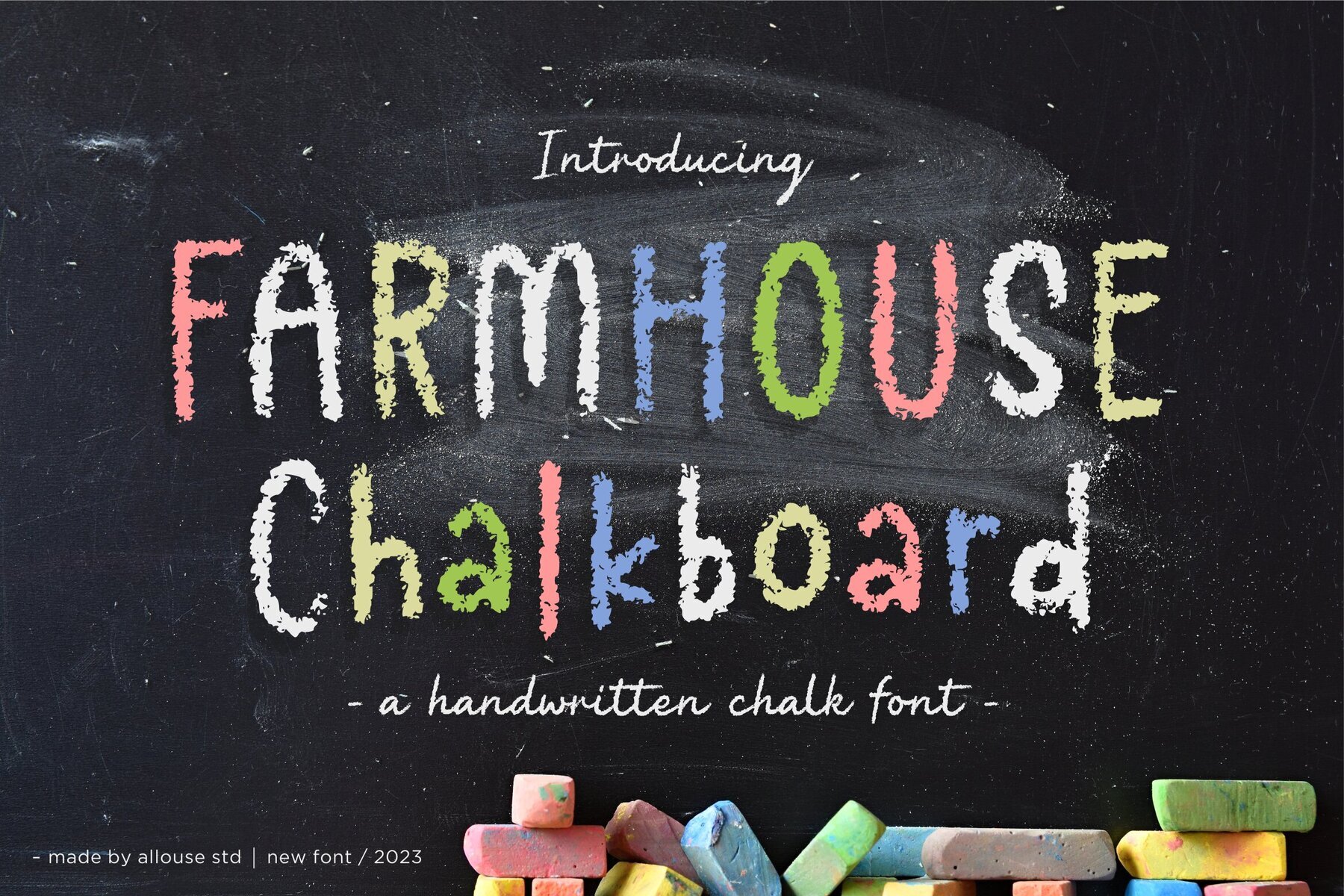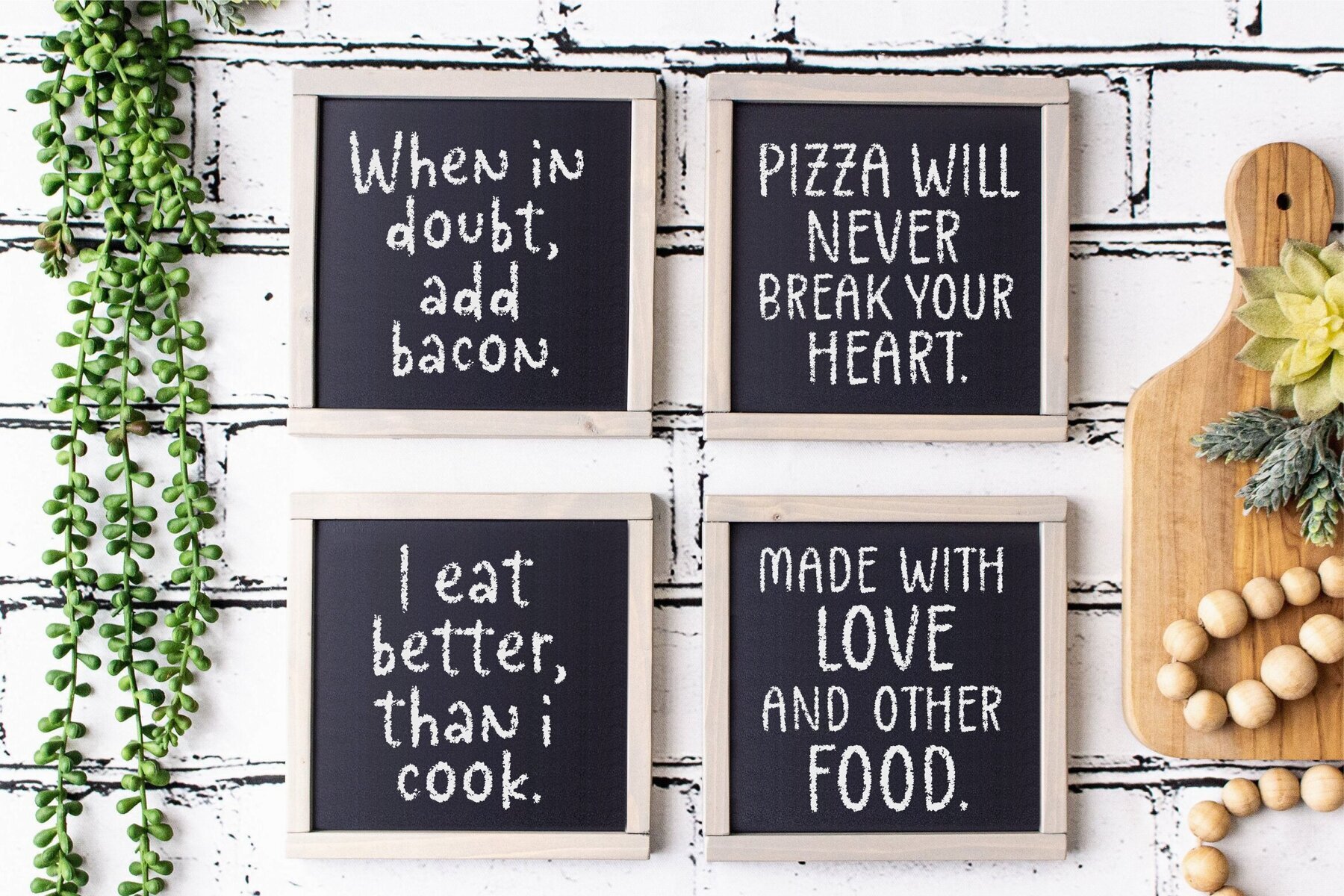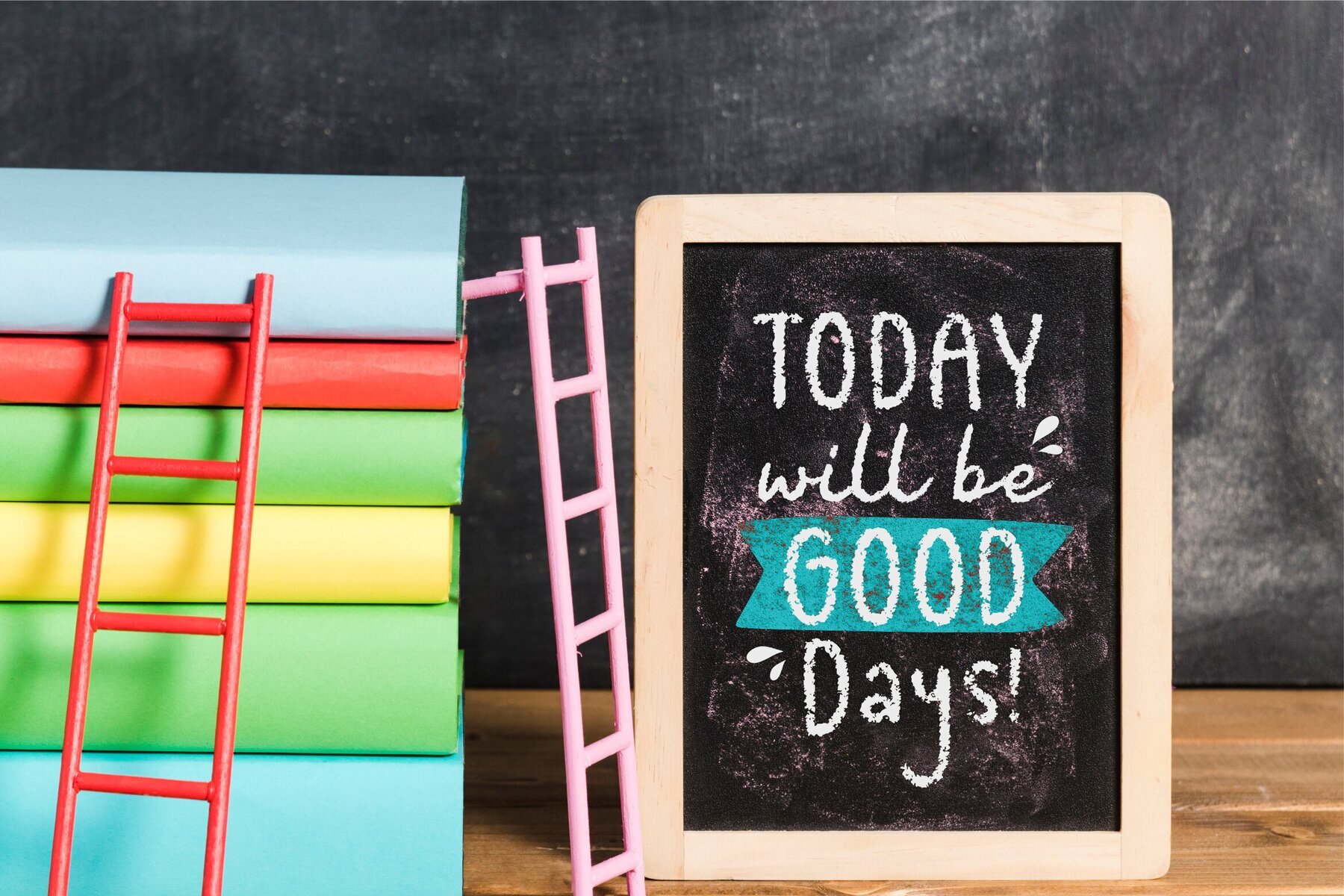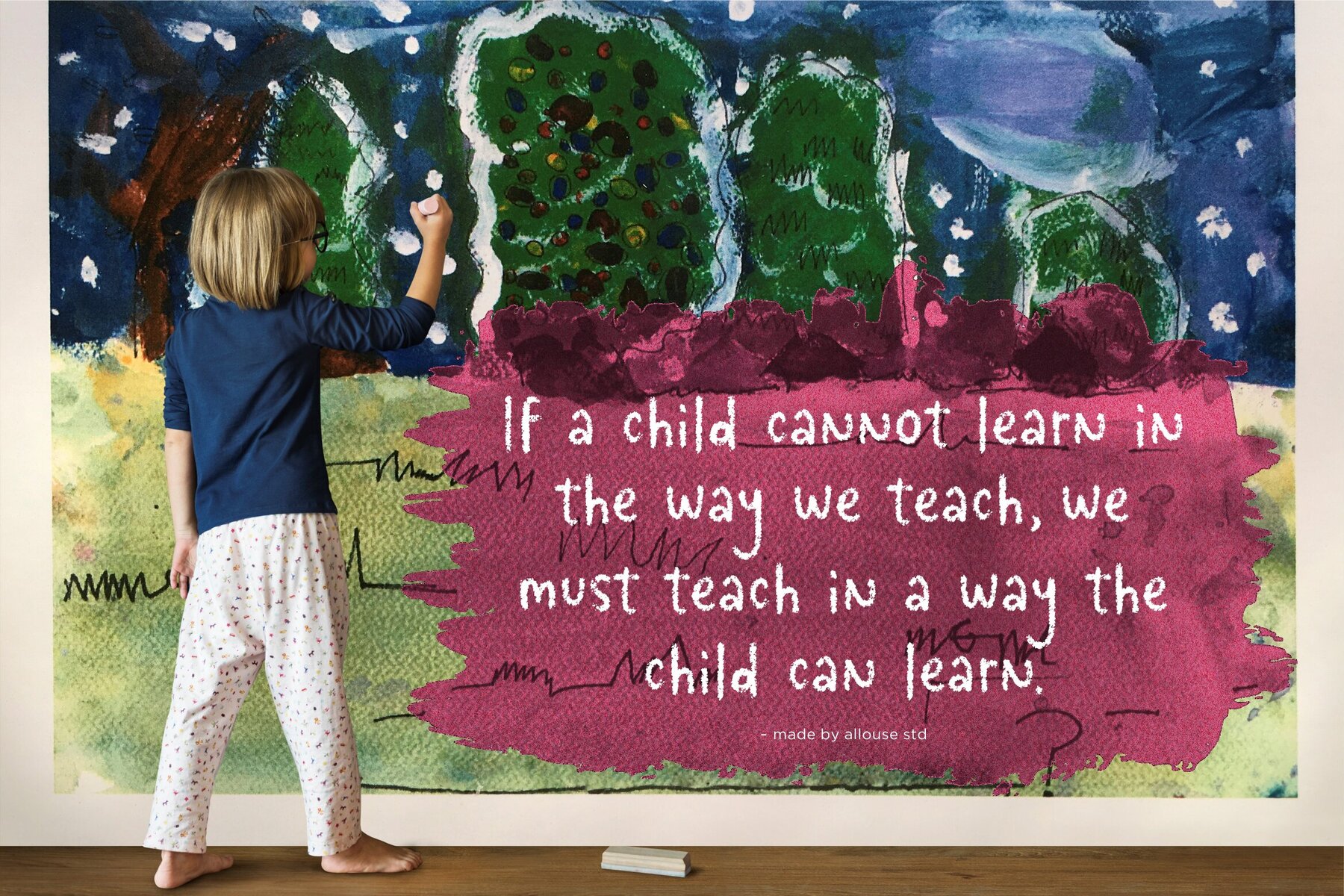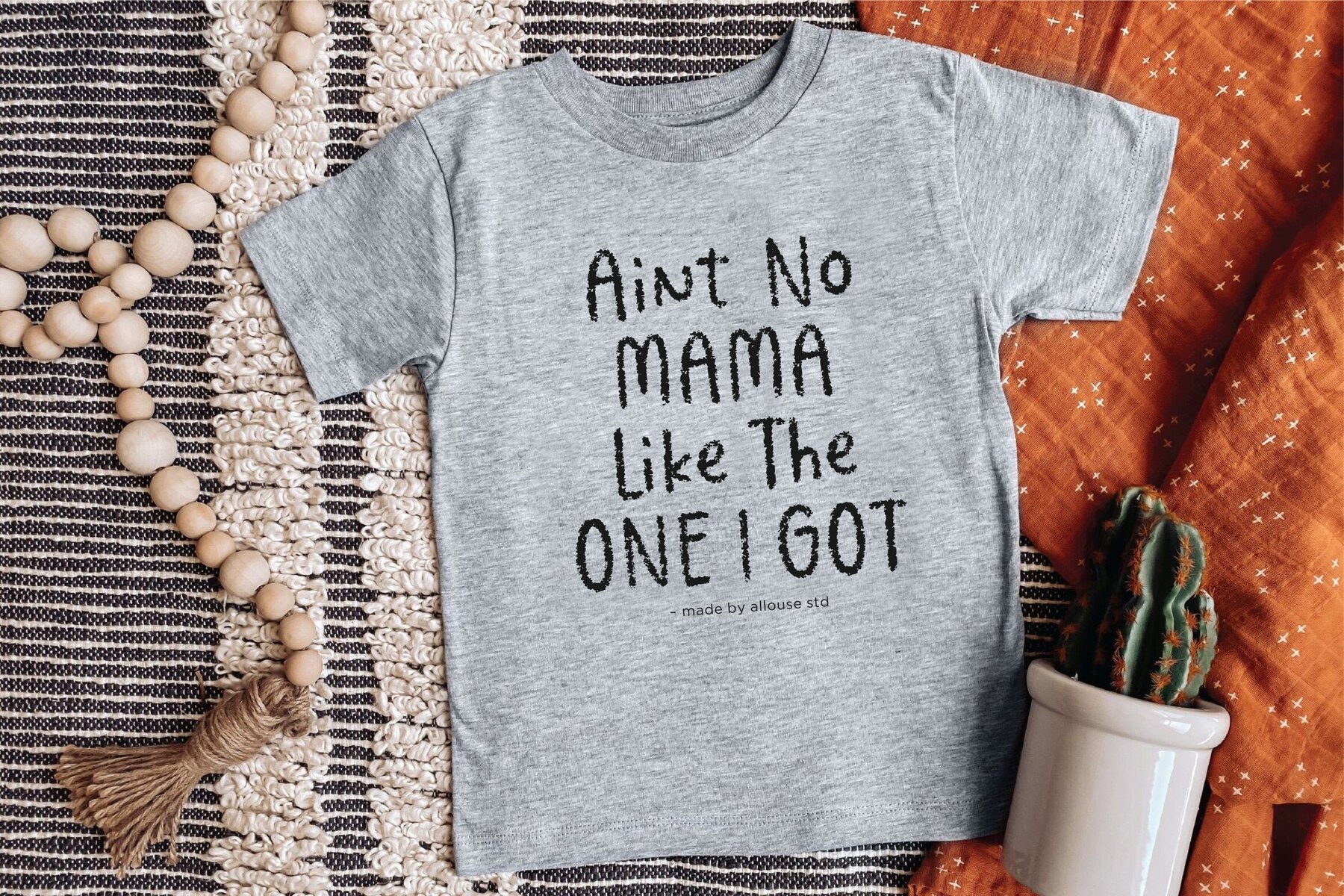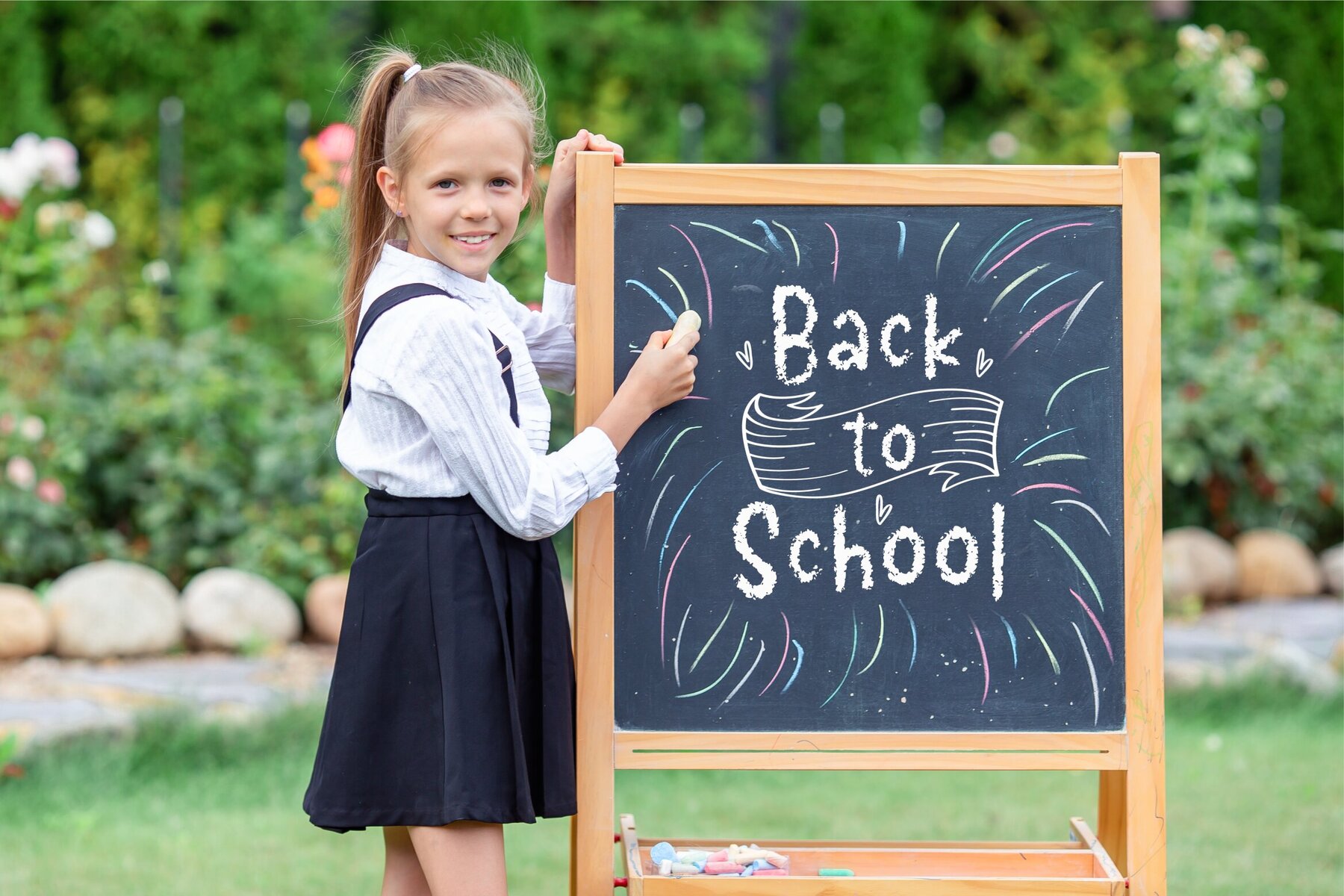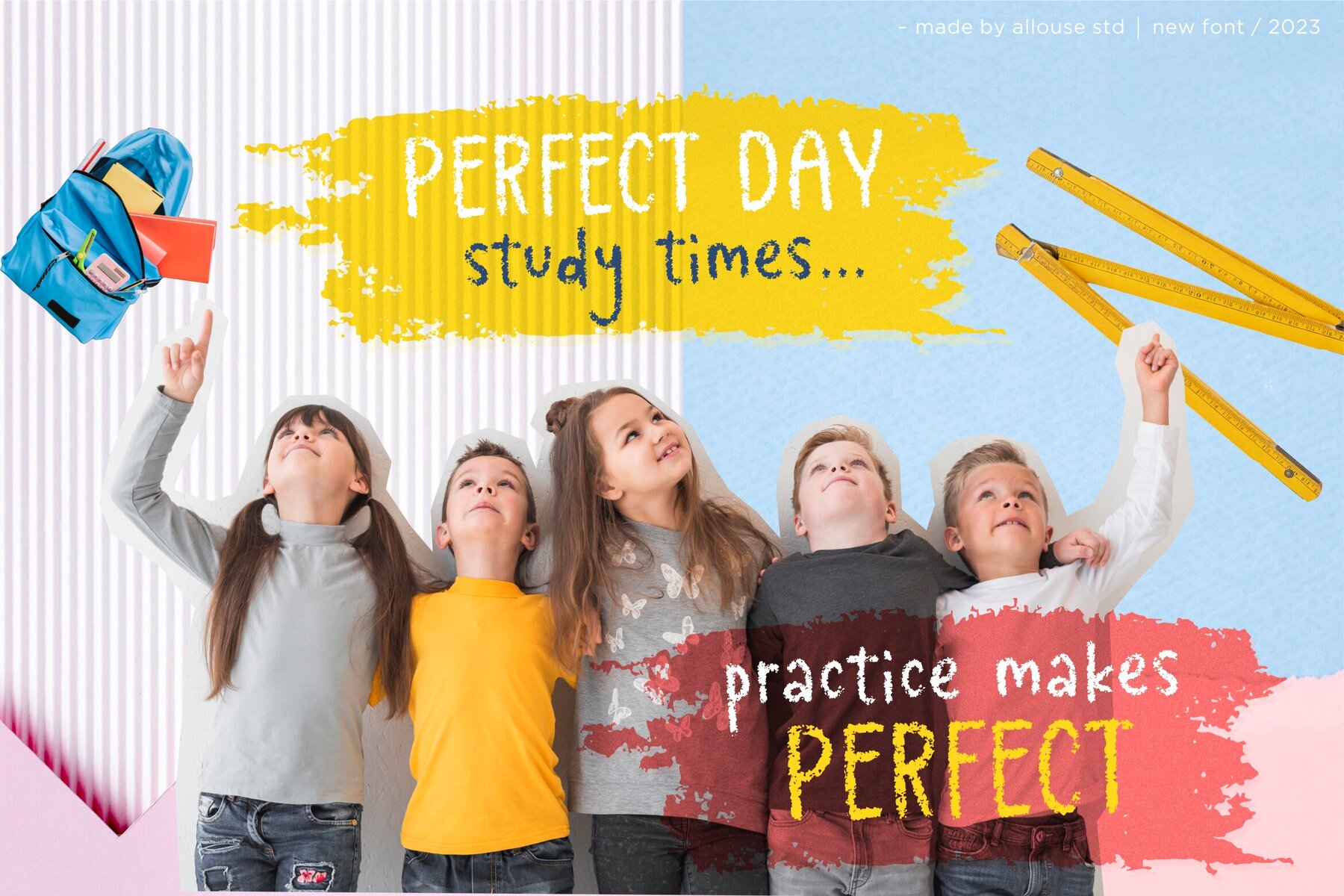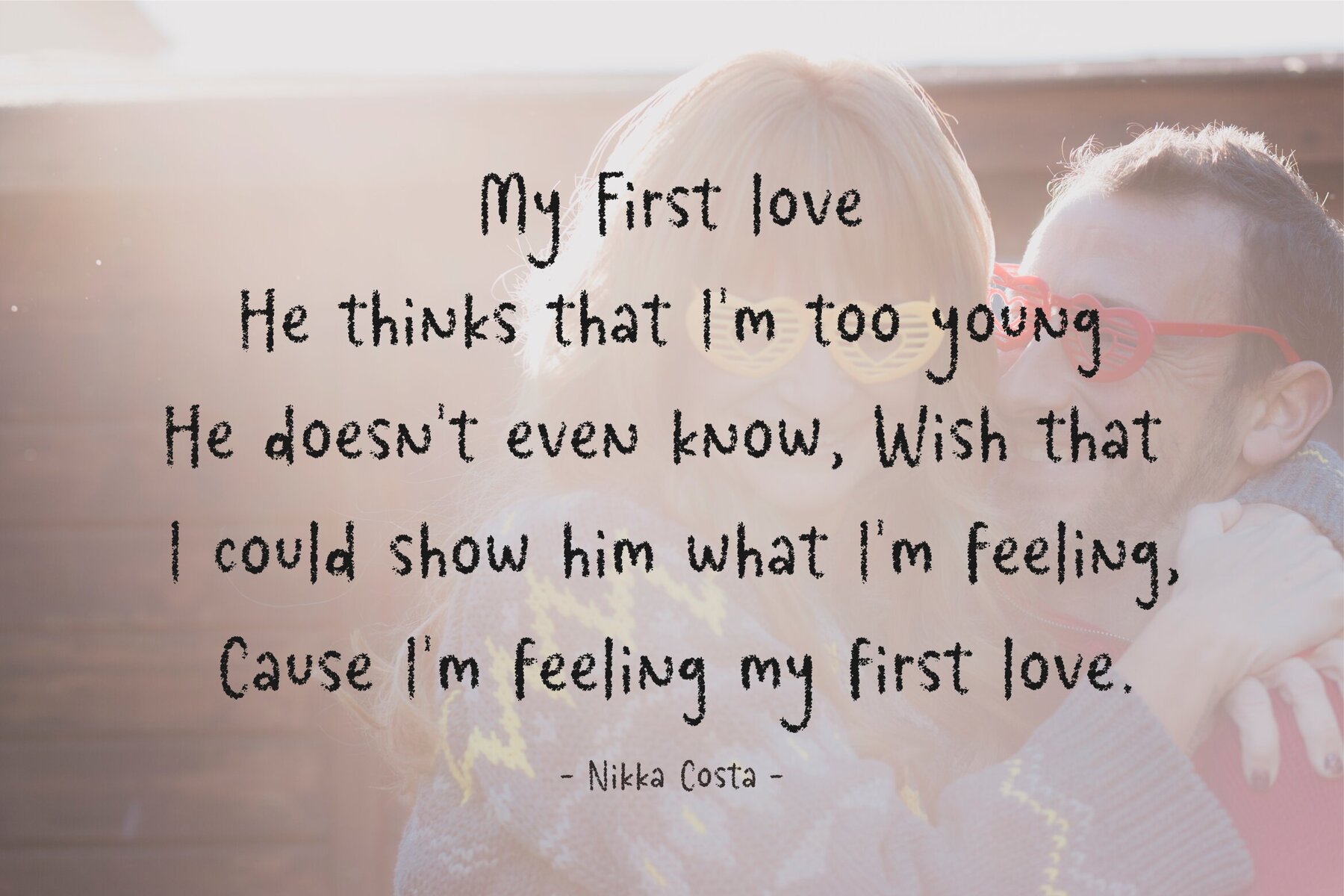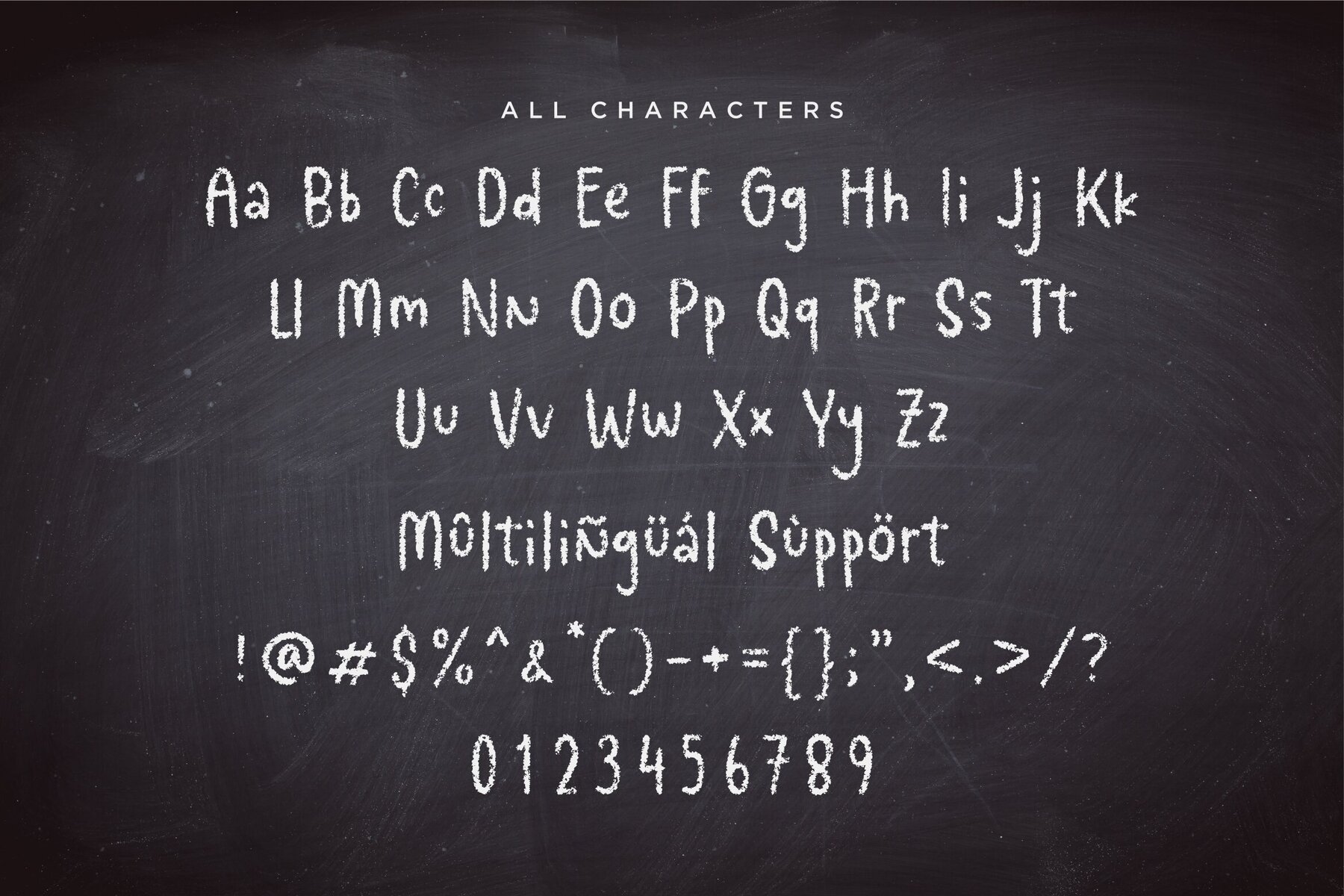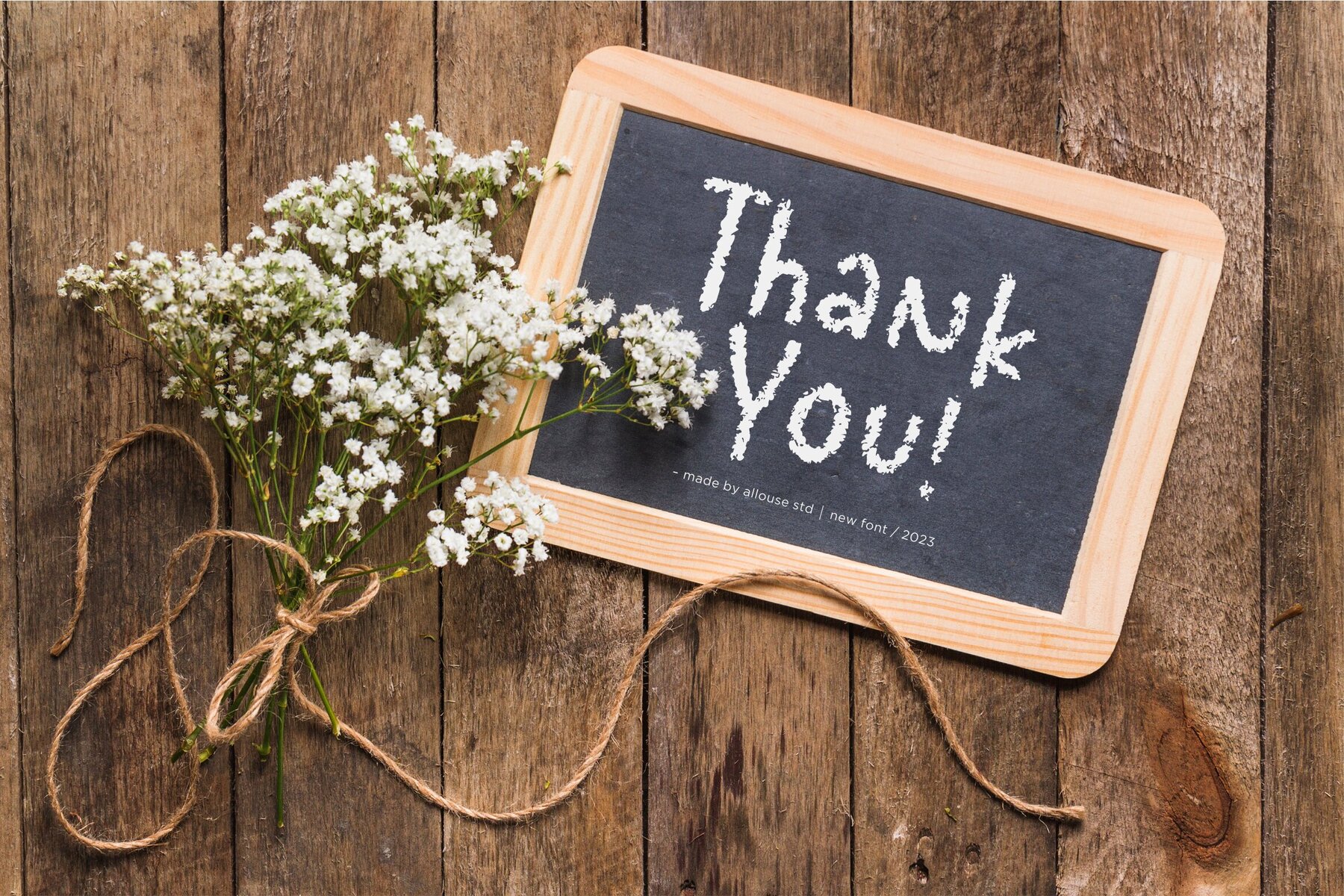
Farmhouse Chalkboard Font
Farmhouse Chalkboard Regular
Farmhouse Chalkboard is a charming handwritten chalk font that brings a touch of rustic elegance to your projects. Ideal for those looking to add a personal touch, this font is perfect for a variety of applications.Farmhouse Chalkboard: Rustic Handwritten Chalk Font
Perfect Uses for Farmhouse Chalkboard